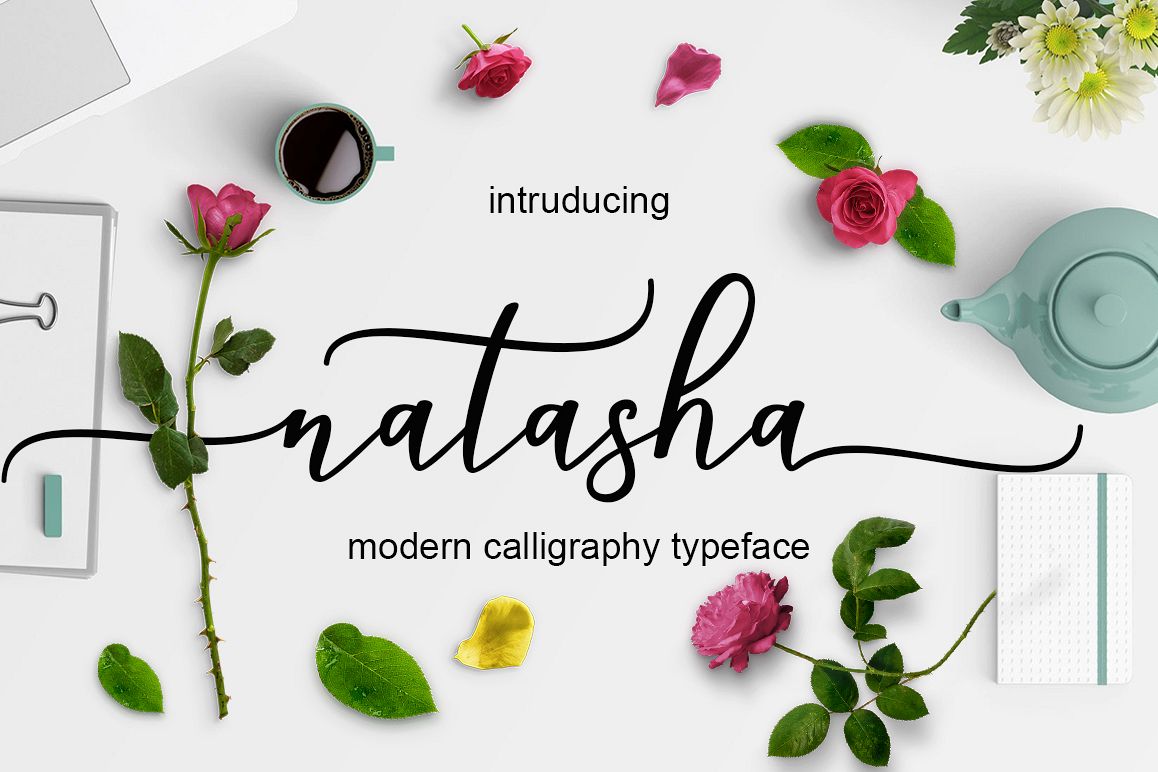
Natasha
Natasha Script a new fresh & modern script with a handmade calligraphy style, decorative characters So beautiful on invitation like greeting cards, branding materials, business cards, quotes, posters, and more!!